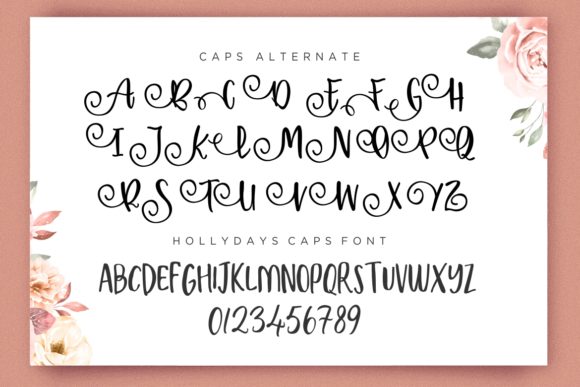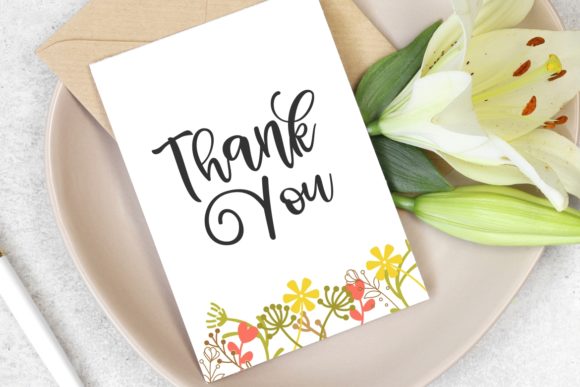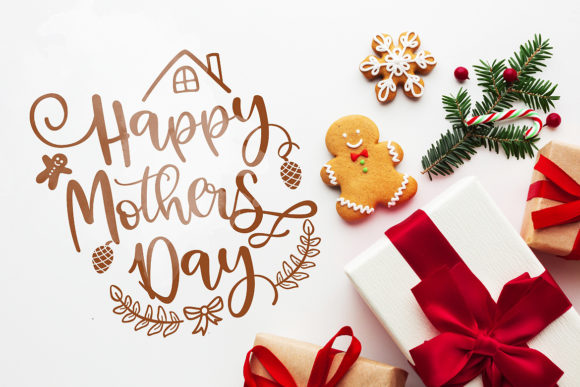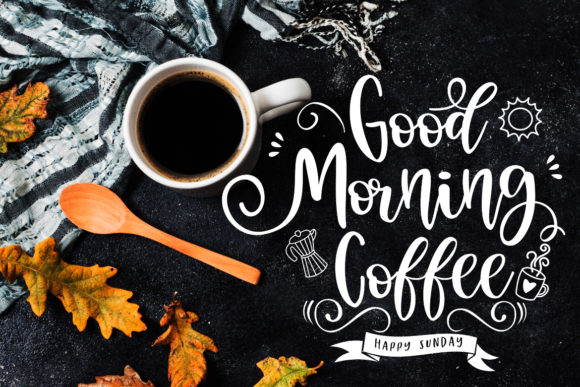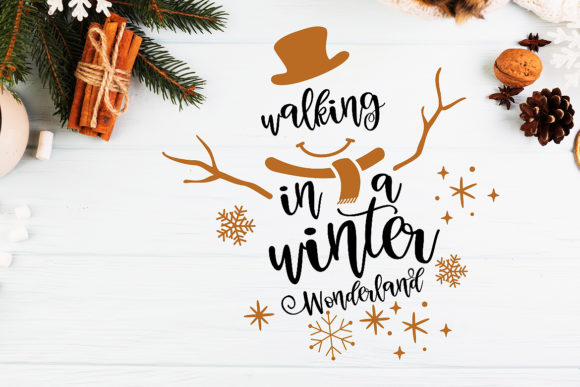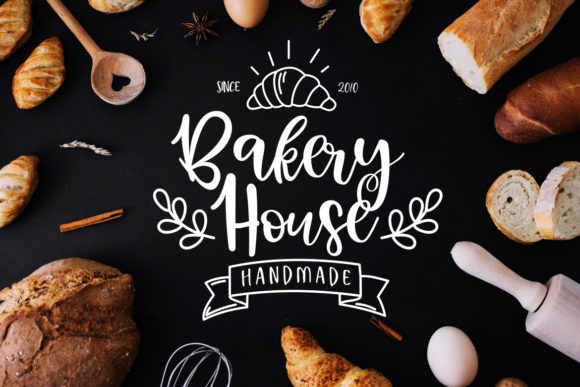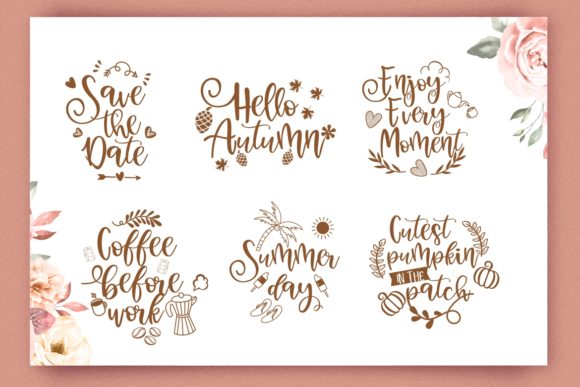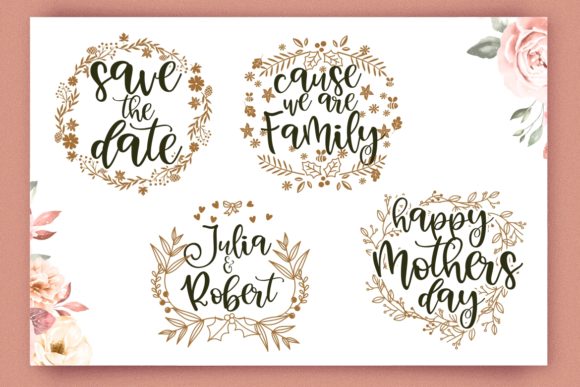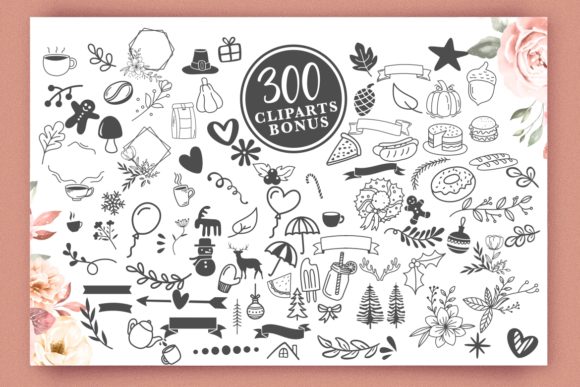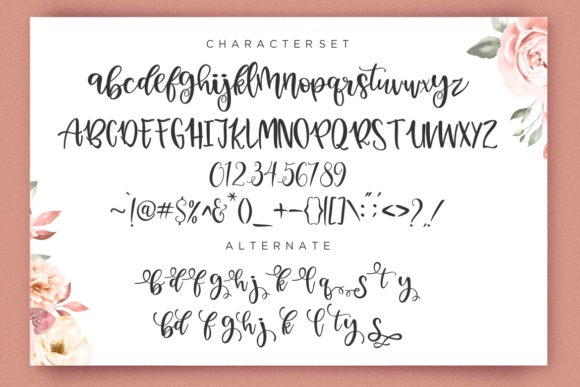
HomeScript FontsHolly Days Font Script Fonts Holly Days Font FacebookXPinterestWhatsApp Holly Days Font Poster 2 Holly Days Font Poster 3 Holly Days Font Poster 4 Holly Days Font Poster 5 Holly Days Font Poster 6 Holly Days Font Poster 7 Holly Days Font Poster 8 Holly Days Font Poster 9 Holly Days Font Poster 10 Holly Days Font Poster 11 About Holly Days Font Holly Days fuses sweet swashes with authentic lettering into one truly original script. DOWNLOAD ON CREATIVE FABRICAThis font is sold and delivered by Creative Fabrica. Font Canyon may earn a commission if you buy through this link. People also explored Progbe Font Coffee Shop Script Sketch Font Torrau Font Love Shot Font Bahama Nights Font Maharani Font Farmhomes Handwritten Font Bundle Vol 9 Aragon 318 0 TagsHolly Days Font Previous articleChicken Noodle Soup FontNext articleVintage Delights Font LEAVE A REPLY Cancel reply Comment: Please enter your comment! Name:* Please enter your name here Email:* You have entered an incorrect email address! Please enter your email address here Website: Save my name, email, and website in this browser for the next time I comment. Personal Use Free Nikoleta Personal Use Free Read more about this font Madison Script Personal Use Free Read more about this font Vexler Slip Personal Use Free Read more about this font Dear Monita Personal Use Free Read more about this font BLOG Top 7 Google Fonts Alternatives for Faster and Privacy-Friendly Web Design (2025) Top 7 Google Fonts Alternatives for Faster and Privacy-Friendly Web Design (2025) When it comes to web typography, Google Fonts has long been the go-to... Top 10 Handwritten Fonts That Elevate Your Designs Using Fonts in Digital Marketing: Tips to Strengthen Your Brand Identity 5 Fonts That Will Dominate Design Trends in 2026